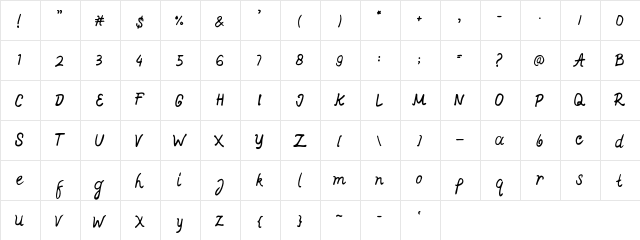
Ajieb Regular
Design Context for Ajieb Typeface
Ajieb is a composed and adaptable typeface that performs quietly and consistently across a wide range of design contexts.
Pro Tip: Use Ajieb in both headline and body roles to test its range before committing to a single application.